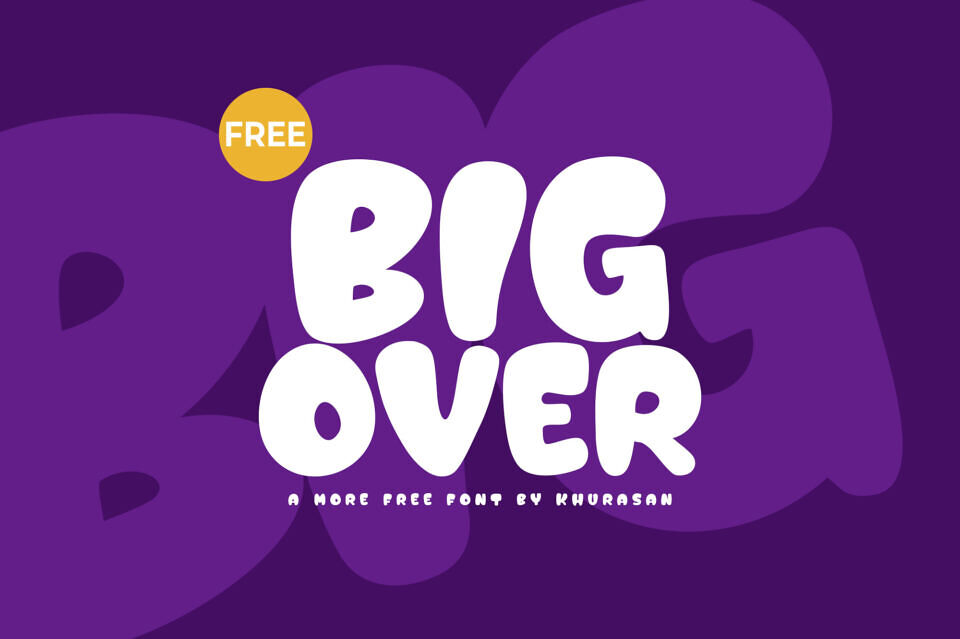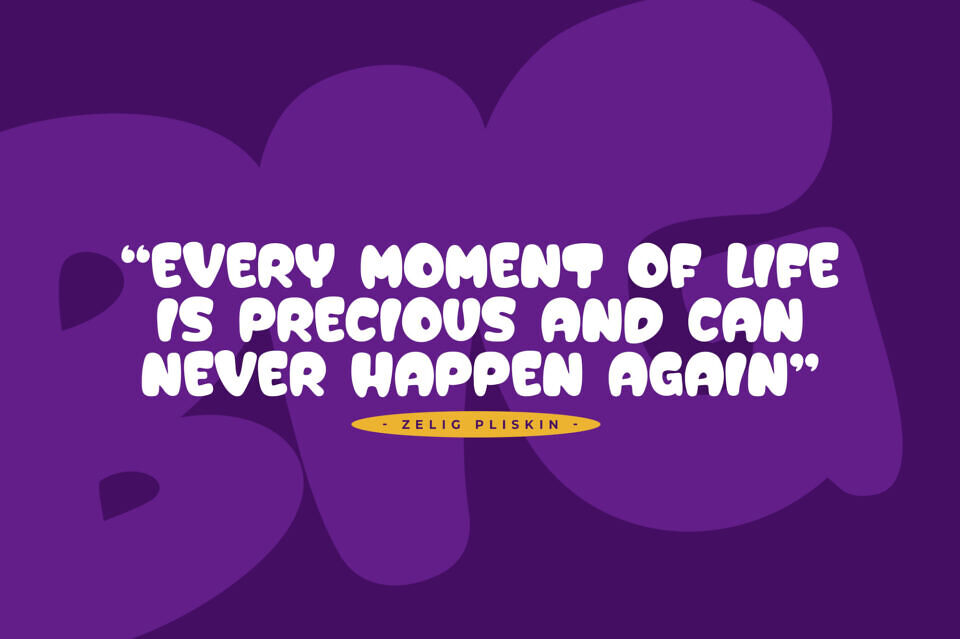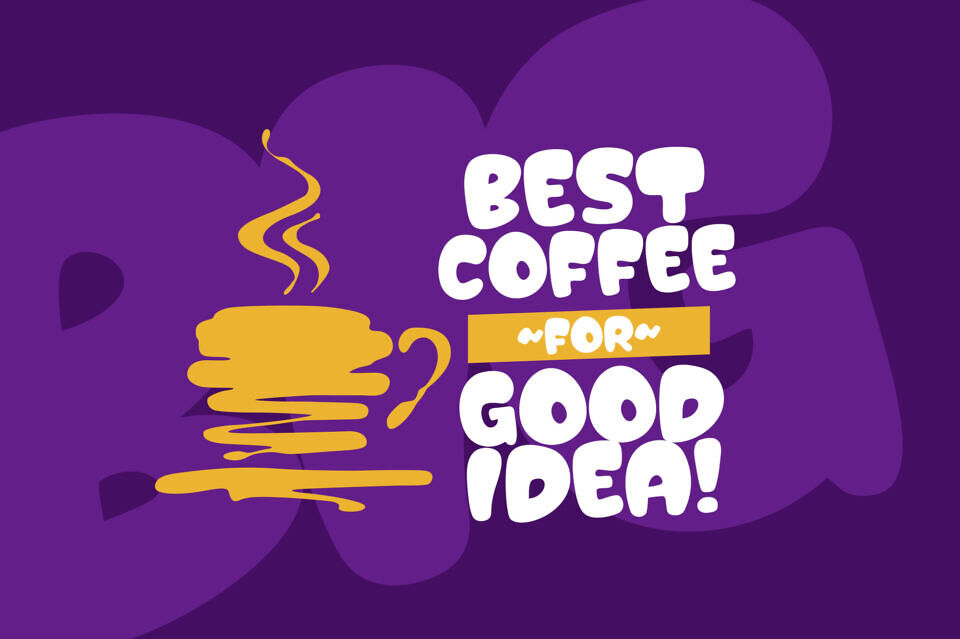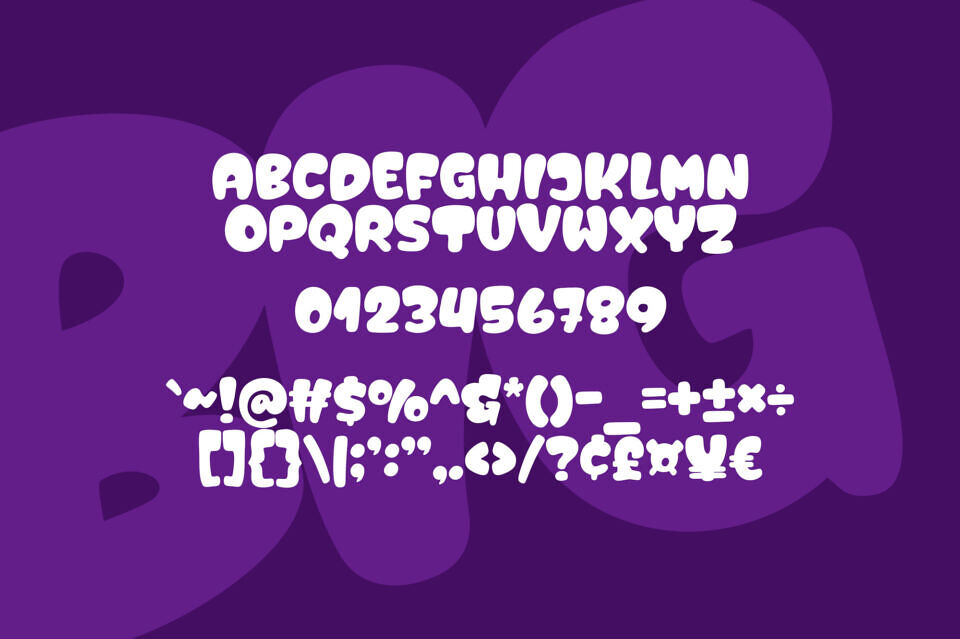
Bigover is a bold, cartoonish display font designed by Khurasan. Featuring soft, rounded, and extra-thick letterforms, it channels a playful, hand-drawn vibe.
Its high-impact look is ideal for eye-catching quotes, merchandise, and friendly branding. The layout includes a complete set of uppercase letters, numbers, and common punctuation, making it incredibly versatile for any design needing a fun, high-energy presence.